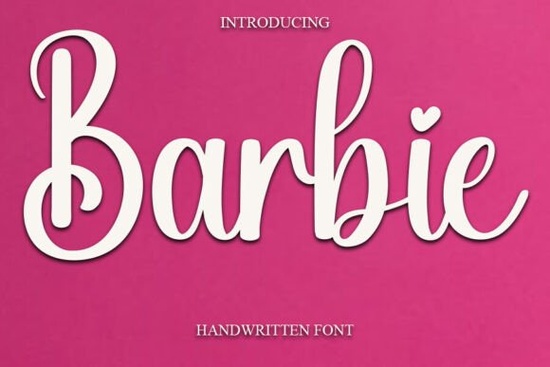
If you're looking for a simple handwritten font that adds a natural, approachable feel to your work, the Barbie Font is worth a close look. This versatile script font works well for everything from greeting cards to headlines, and its clean, unpretentious style makes it a favorite among designers, print-on-demand sellers, and hobbyists who want their text to feel personal without being fussy.
What makes Barbie Font stand out?
Barbie Font is a handwritten typeface that strikes a balance between legibility and charm. Unlike some script fonts that sacrifice readability for flourish, Barbie keeps each letter clear and easy to read. That makes it a great choice for shorter text blocks, product labels, or social media graphics where you want a human touch without confusing your audience. The strokes are light and consistent, so it works well at both small sizes (like on a tag) and larger sizes (like a headline).
Because it's a simple handwritten font, it pairs beautifully with more structured sans-serif or serif typefaces. For example, you could use Barbie Font for the main message of a greeting card and combine it with a clean sans-serif for secondary details. The natural feel comes from the slight irregularities you'd expect from real handwriting each letter has a gentle rhythm that avoids looking robotic.
Is Barbie Font good for print-on-demand products?
Absolutely. Print-on-demand sellers often need fonts that look good on a variety of products t-shirts, mugs, phone cases, tote bags and Barbie Font handles that well. Its handwritten style fits the popular "hand lettered" aesthetic that buyers love for quote designs, motivational phrases, and personalized gifts. The font's simplicity also means it will scale nicely. Whether you're printing on a small sticker or a large poster, the letters remain crisp and readable.
When creating mockups for your POD store, try pairing Barbie Font with a script like Memo Sketch Font for a playful contrast, or use it alongside Lonely Person Font to create a more layered, artistic look. The key is to keep your design balanced let Barbie Font carry the emotional tone while a supporting font handles extra information.
How can I use Barbie Font in greeting cards and invitations?
Greeting cards are one of the best use cases for Barbie Font. Its natural handwritten appearance makes recipients feel like the message was written just for them. You can use it for the main sentiment (like "Happy Birthday" or "Thinking of You") and then add smaller details in a simpler font. For wedding invitations or baby shower cards, Barbie Font gives a warm, informal elegance that works well for both digital and printed cards.
If you want to add a signature-style touch, consider combining it with Brittiany Signature Font for names or special highlights. The two fonts share a handwritten vibe but differ enough to create visual interest. For everyday note cards or kids' party invites, Barbie Font also pairs nicely with Kids Daily Notes Font both have a friendly, accessible feel.
What about using Barbie Font for headlines and logos?
Yes, Barbie Font works for headlines, especially in designs that need a personal, approachable tone. For example, a bakery's website header, a lifestyle blog title, or a small business logo can all benefit from the font's simplicity. Because it's not overly ornate, it doesn't compete with other design elements. You can use it in all caps for a bolder statement or in lowercase for a softer look. Just keep in mind that for very long headlines, you might want to increase the letter spacing slightly to maintain readability.
If you're designing for a brand that needs a script font with a bit more character, you could also explore Baloo Font, another script option that shares that handwritten charm but with a slightly different weight and personality.
Where else can I use Barbie Font?
Beyond cards, POD products, and headlines, Barbie Font is versatile enough for:
- Social media graphics – Quotes, announcements, and story highlights.
- DIY crafts – Stickers, scrapbooking, and handmade labels.
- Etsy shop banners – A friendly, handcrafted feel for your shop header.
- Children's book covers or worksheets – Its simple shapes are easy for young readers to recognize.
- Presentations and slides – For titles or emphasis in a casual deck.
The font comes with all standard characters, so you can use it in many languages and include punctuation easily. Because it's a handwritten font, it also works well for short, personal notes like "Thank you" tags or "made with love" stamps on packaging.
Practical checklist before using Barbie Font in your design
- ☐ Test the font at your intended size – small text might need a lighter weight or larger point size.
- ☐ Pair it with a simple sans-serif (e.g., Montserrat, Open Sans) for body text or secondary information.
- ☐ On print products, check that the thin strokes don't get lost – especially on dark backgrounds or low-quality paper.